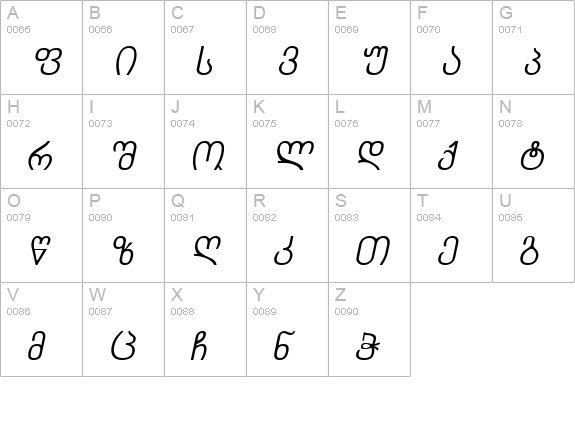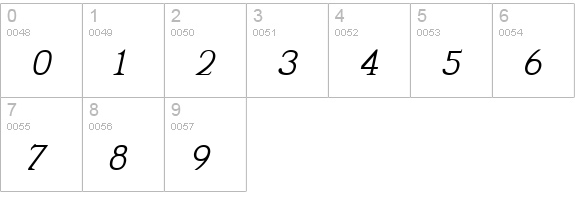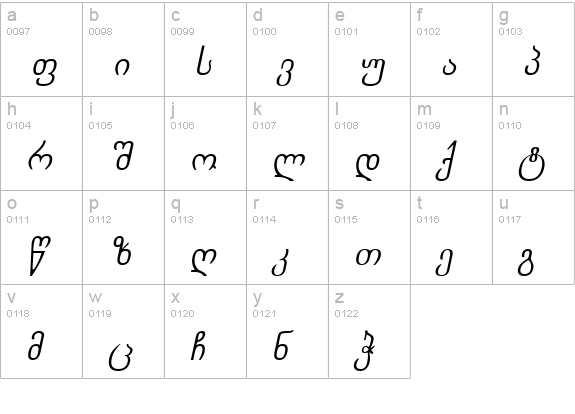
Chveulebrivy-ITV Italic Font Details
Chveulebrivy-ITV Italic is a distinctive, italic variant in the Chveulebrivy typeface family \xE2\x80\x94 well suited to design and typography projects.
Chveulebrivy-ITV Italic font is a stunning and elegant typeface that exudes sophistication and style. Its sleek and modern design makes it perfect for a wide range of projects, from branding to graphic design. The italic style adds a touch of flair and elegance, making your text stand out beautifully. One of the best things about Chveulebrivy-ITV Italic font is that it is available for free download at FontsMarket.com. This means that you can easily access this gorgeous font without having to spend a dime. Whether you are a professional designer or a hobbyist, this font is a fantastic addition to your collection. Let your creativity shine with Chveulebrivy-ITV Italic font and take your projects to the next level.